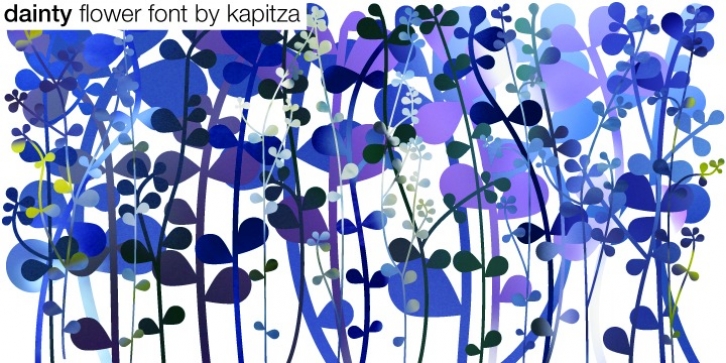
Dainty™ is a flower font inspired by the delicate and beautiful structure of the spurge plant Tithymalus. The various sizes of the 52 illustrations in this font make it easy to create stunning compositions.